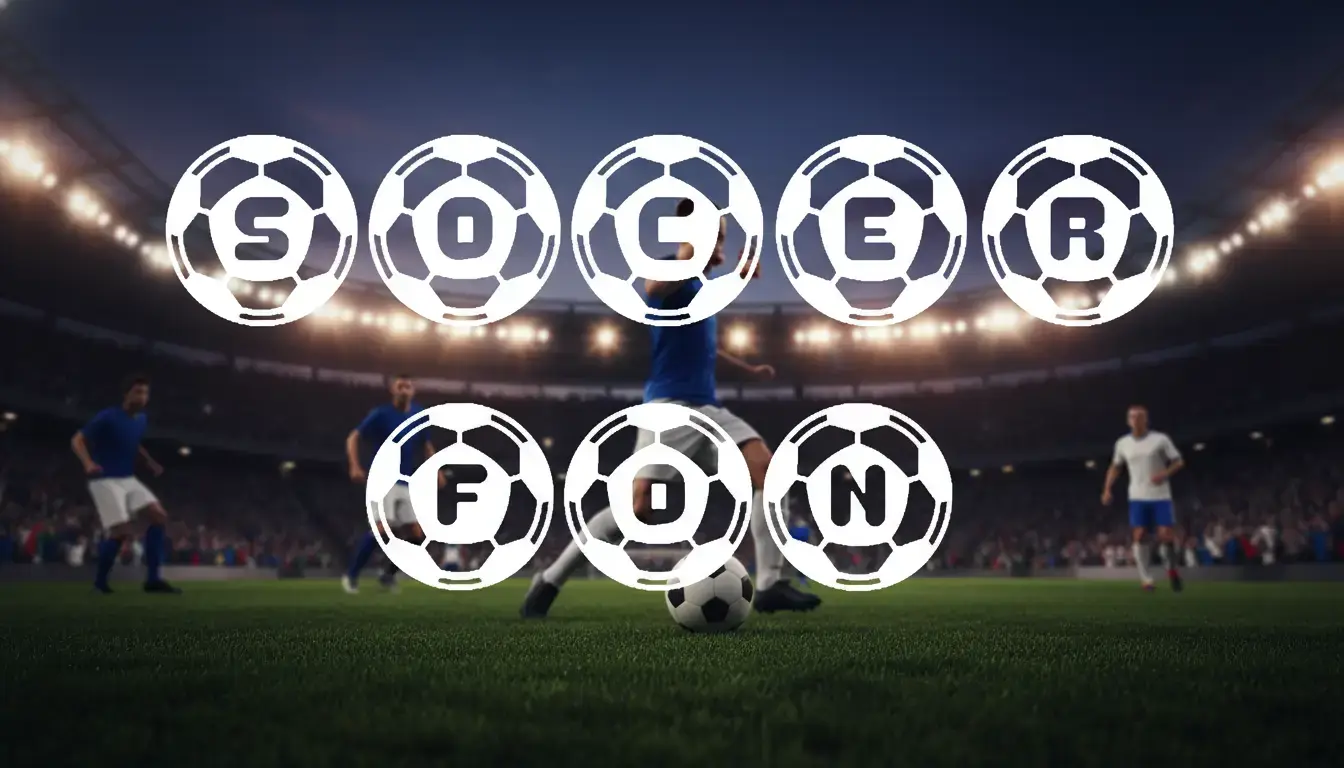
Soccer Font
Soccer is a fancy font made by Vladimir Nikolic. It's a decorative display font with plenty of personality, made to grab attention. It's a free download, and you can try it with your own text in the preview above first.
What You Can Type With Soccer
With complete upper and lowercase letters and all ten digits, Soccer is ready for real wording, not just a single headline. Everyday marks like ! and ? are there too. There are no accented letters like é or ñ, so it's best kept to English text.
Where Soccer Works Best
Designers usually reach for fonts like Soccer when they're making posters, logos and eye-catching headlines. Use it for one standout word or headline and let simpler fonts handle the rest.
Does Soccer support accented letters?
No. Soccer has no accented letters such as é, ñ or ü, so it's best for English text.